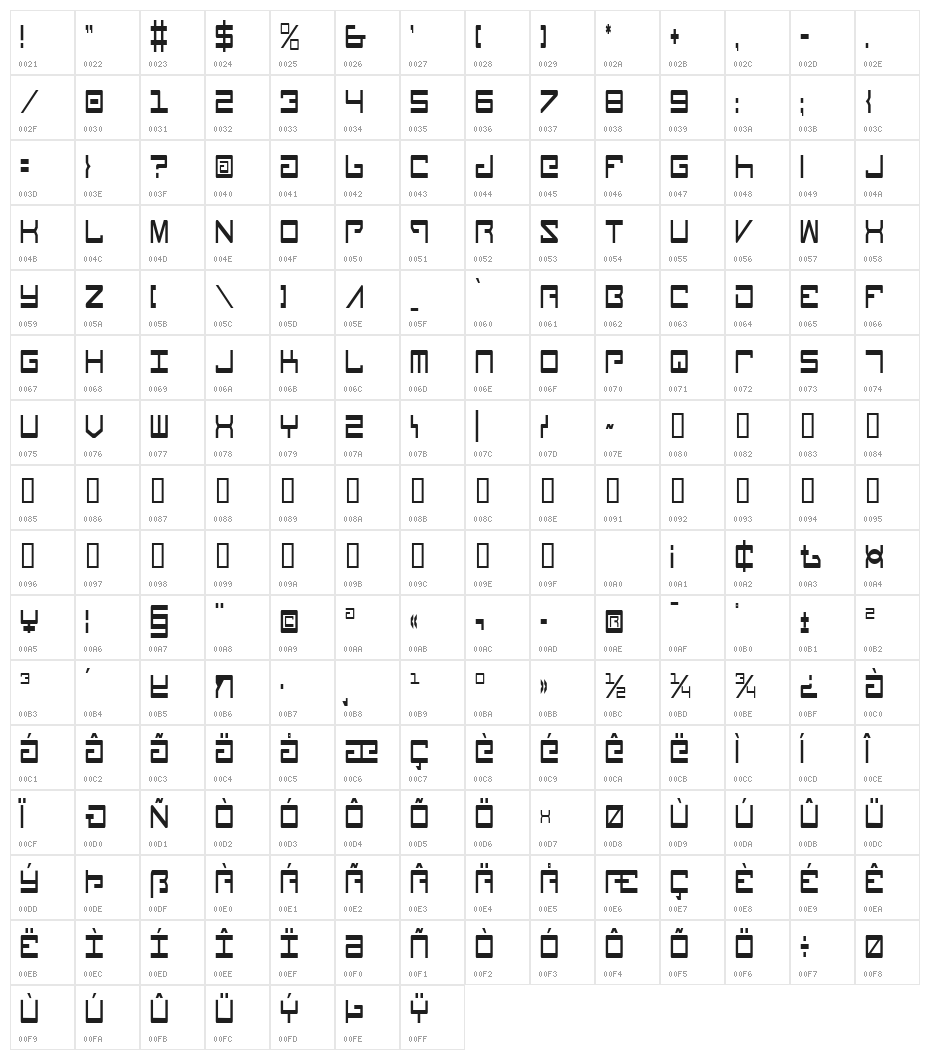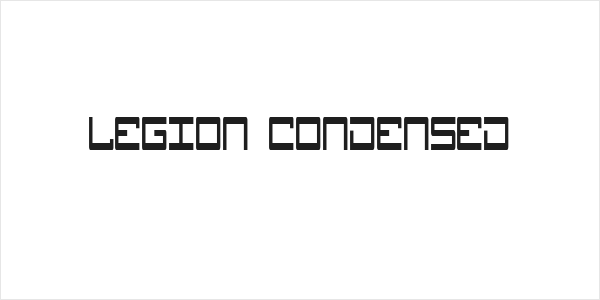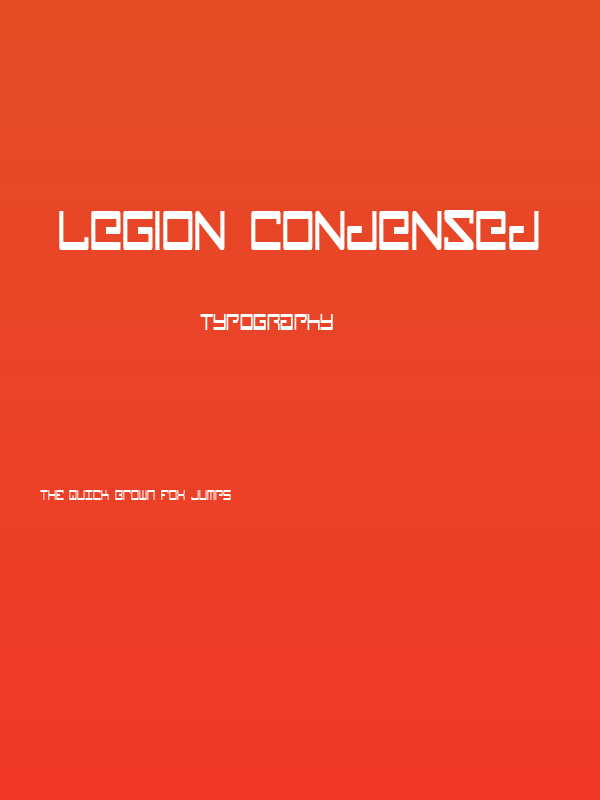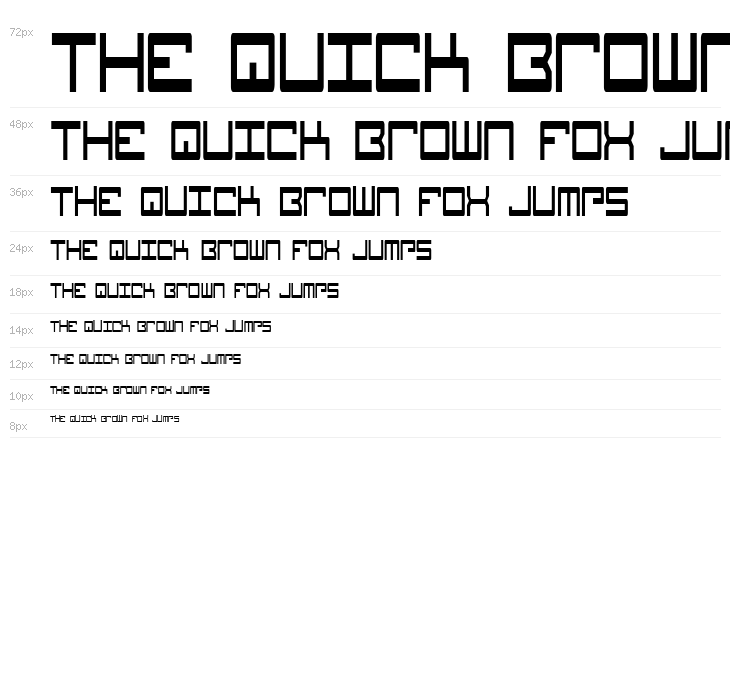
Legion Condensed Font
Legion Condensed Description
This font features a bold, geometric design with a futuristic aesthetic. The characters are constructed with straight lines and sharp angles, giving it a modern and technical feel. The uppercase and lowercase letters maintain a consistent style, with a uniform height and width that enhances readability. The numerals and special characters are designed to match the overall angular theme, making them suitable for digital and print media. The condensed nature of the font allows for efficient use of space, making it ideal for headlines and titles where impact is essential.
Proposed ProjectsIdeal for tech-related branding, sci-fi posters, video game interfaces, and modern advertising campaigns.